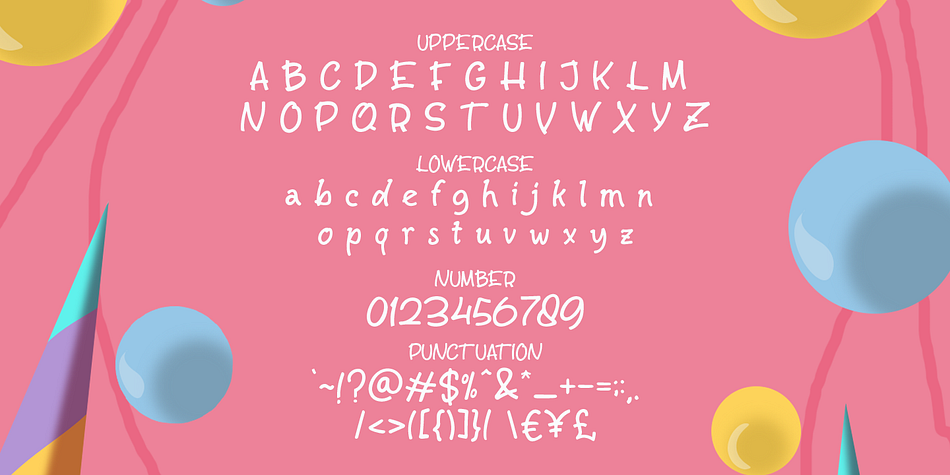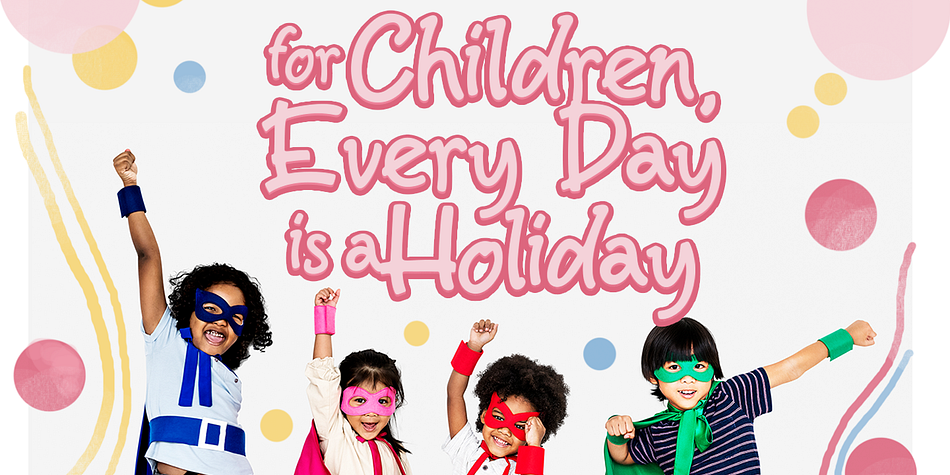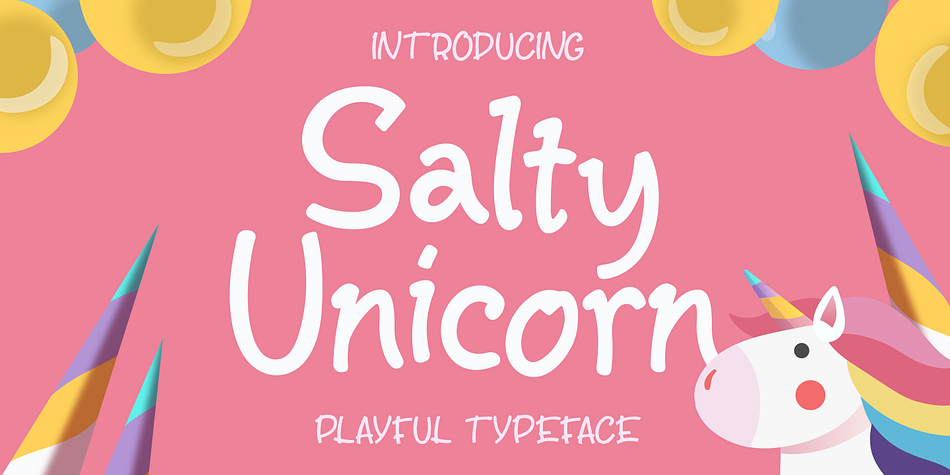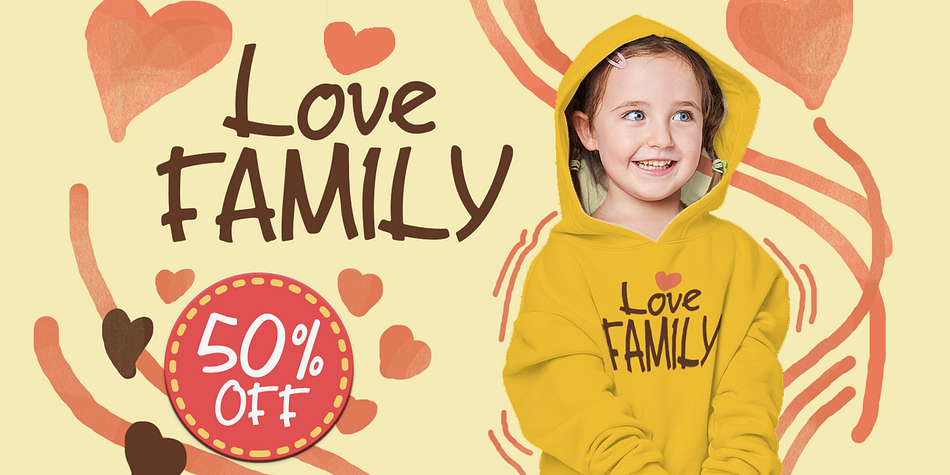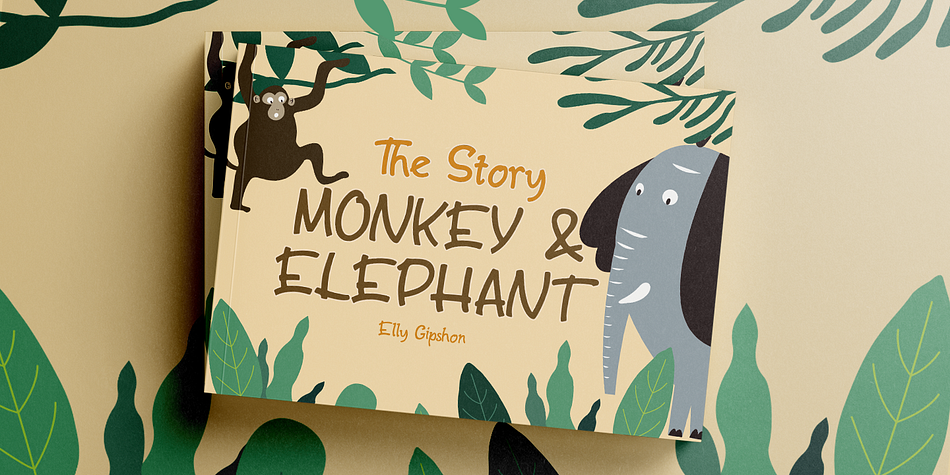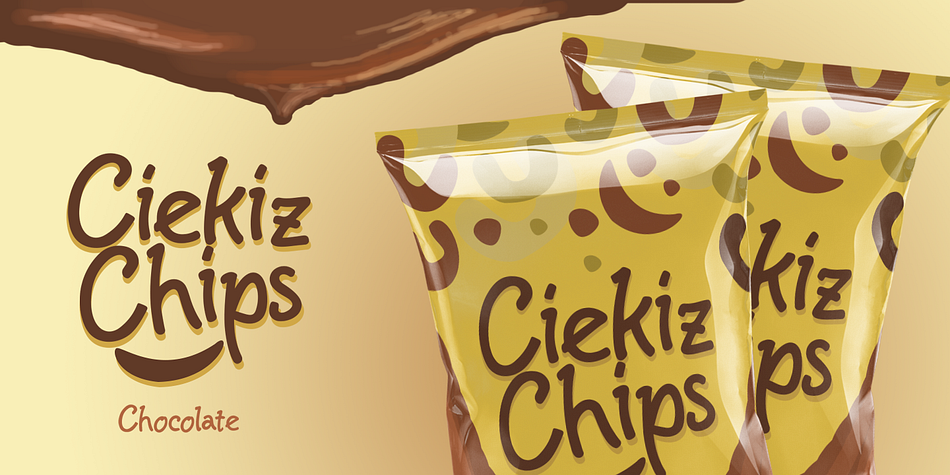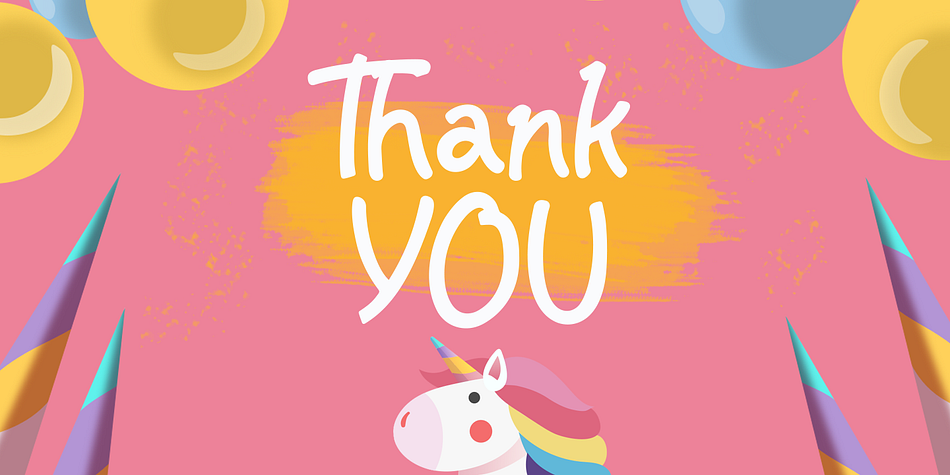
Designed by Hendry Juanda, Salty Unicorn is a hand display and hand drawn font published by Letterhend Studio.
Salty Unicorn is a playful typeface that contain lowercase, uppercase, symbol, and also support multi language. Including ligatures, and many alternates. You can use this font to make a logo for branding, quote, and playful design. Also already PUA Encoded.